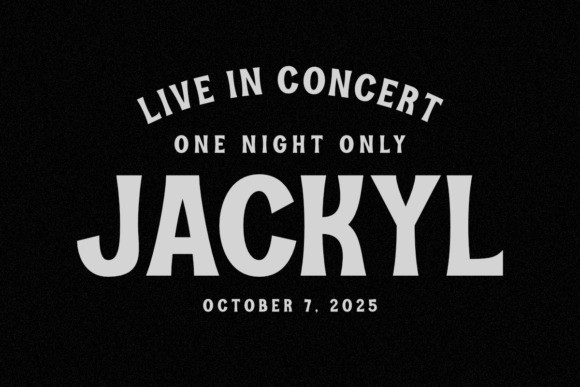
Harvest Vintage Font
Harvest Font is a bold vintage typeface that brings a timeless retro aesthetic to your design projects. With its strong curves and classic letterforms, this font is perfect for Print On Demand (POD) products such as t-shirts, mugs, posters, and tote bags. It also works beautifully in film titles, branding projects, packaging, and handmade crafts.
Whether you are creating cinematic visuals, retro-inspired logos, Cricut and Silhouette crafts, or marketing materials, Harvest adds character and authenticity to your work.